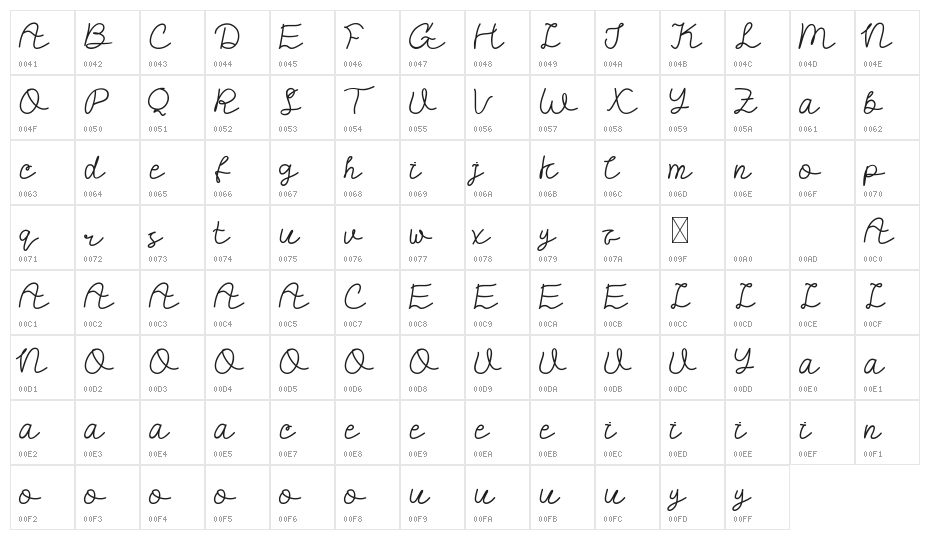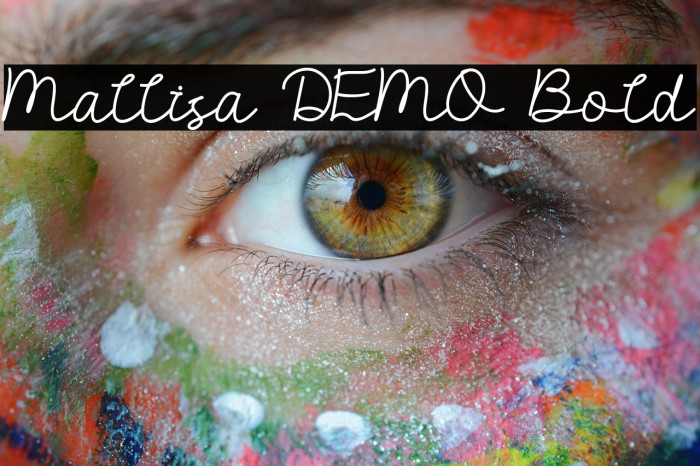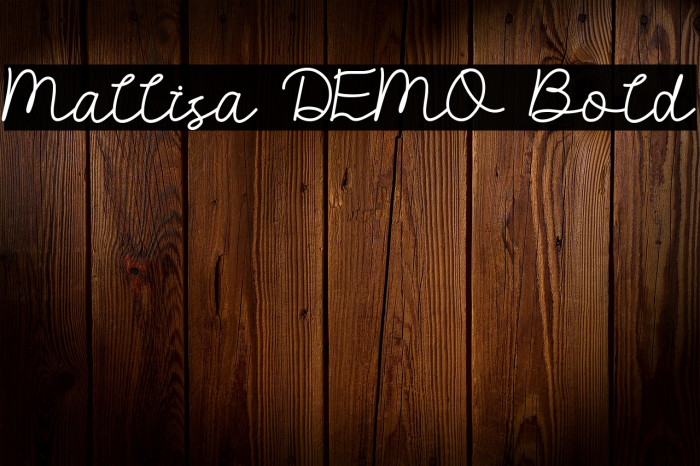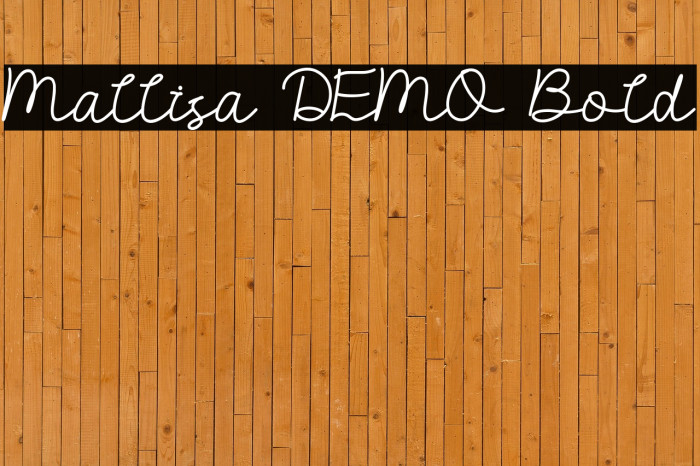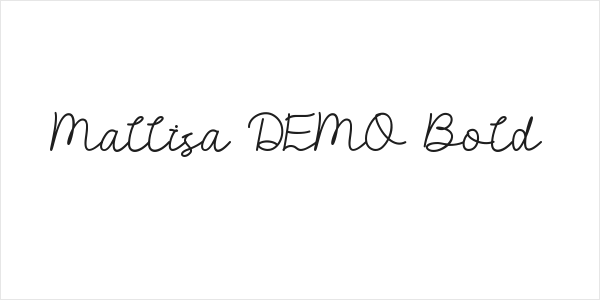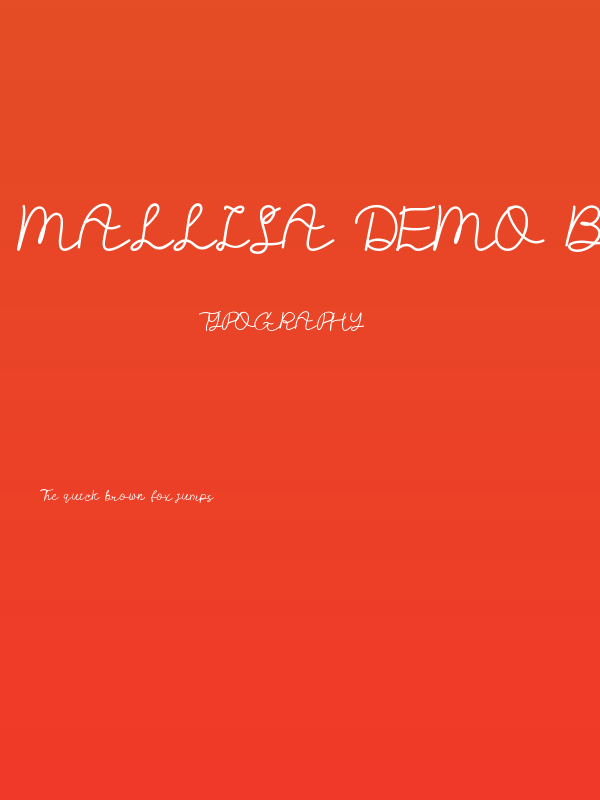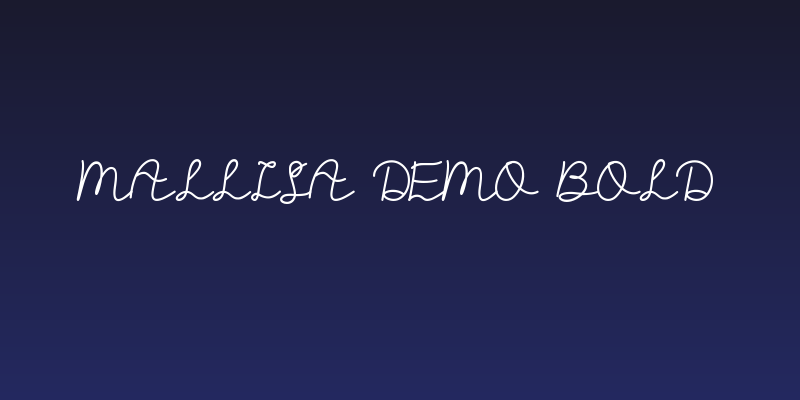
Mallisa DEMO Bold Font
Mallisa DEMO Bold Description
This font features a flowing, cursive style that exudes elegance and sophistication. The characters are interconnected, creating a seamless and fluid appearance. The uppercase letters are slightly more ornate, with gentle loops and curves, while the lowercase letters maintain a consistent, graceful flow. The strokes are moderately thick, providing a bold presence without overwhelming the design. This font is ideal for projects that require a touch of class and refinement, such as wedding invitations, elegant branding, or high-end product packaging. The overall style is both modern and timeless, making it versatile for various applications.